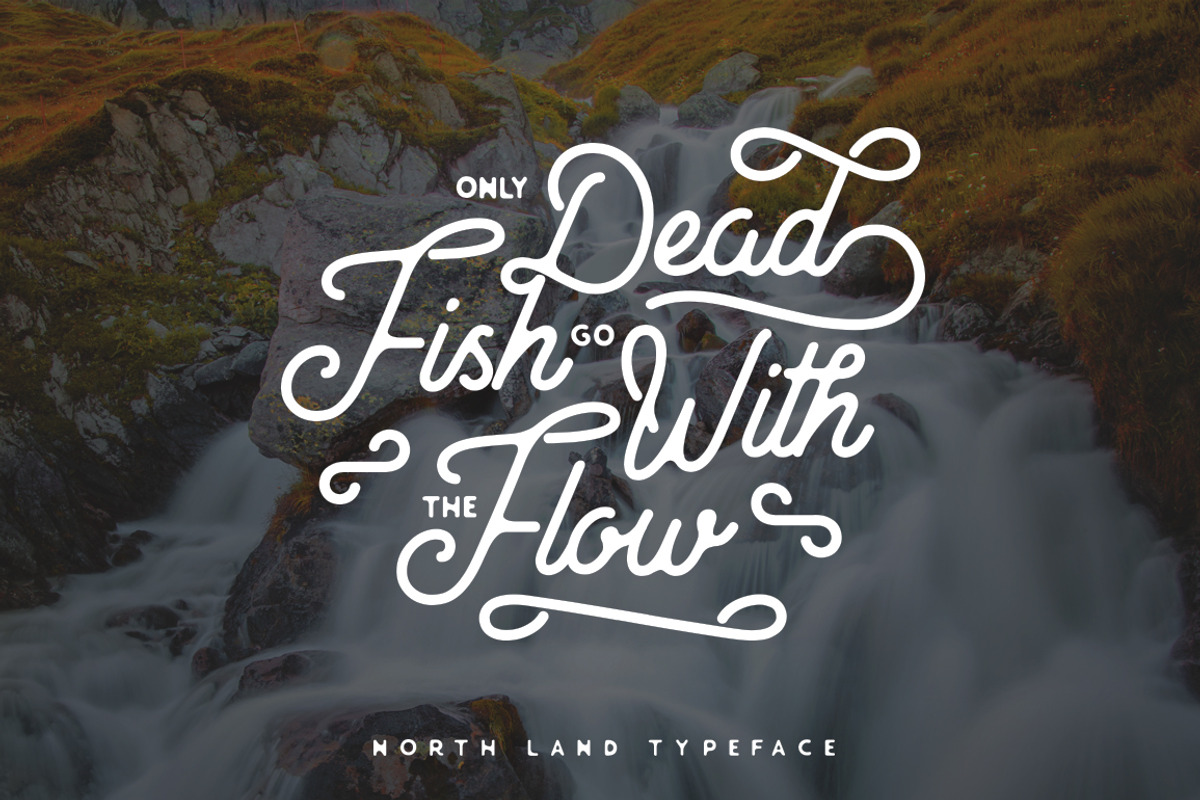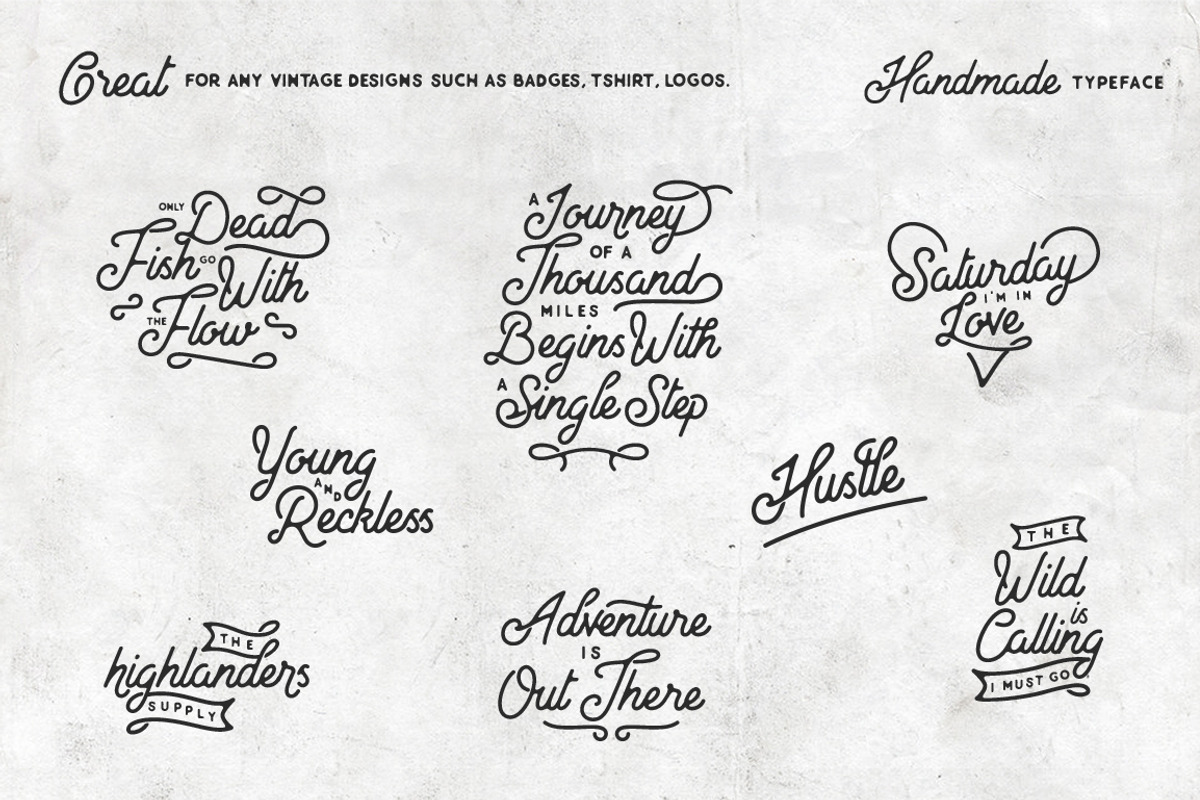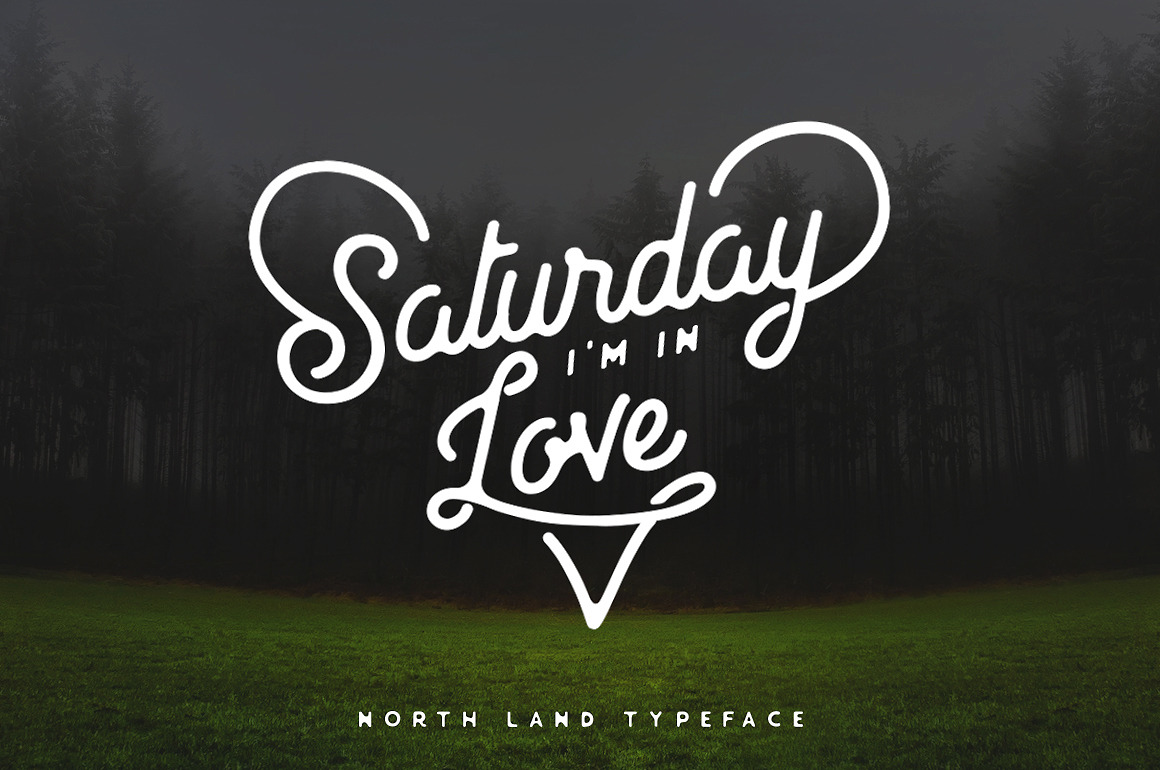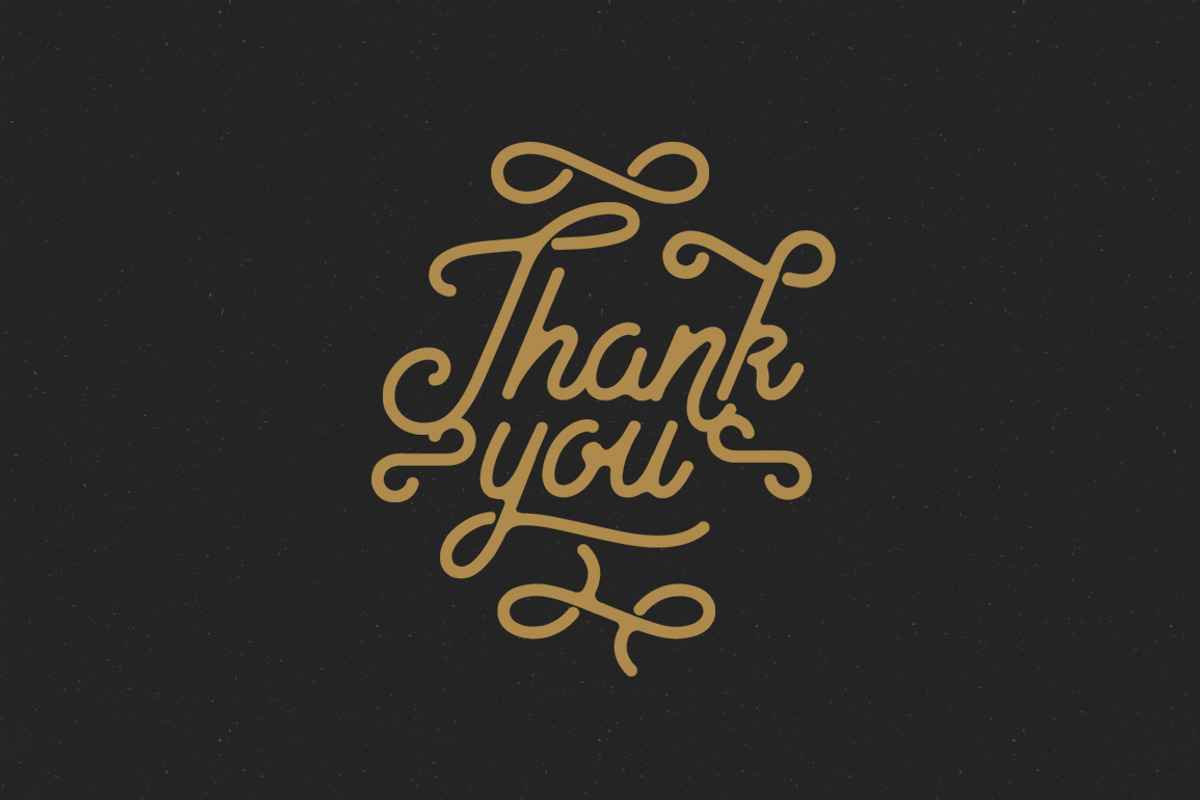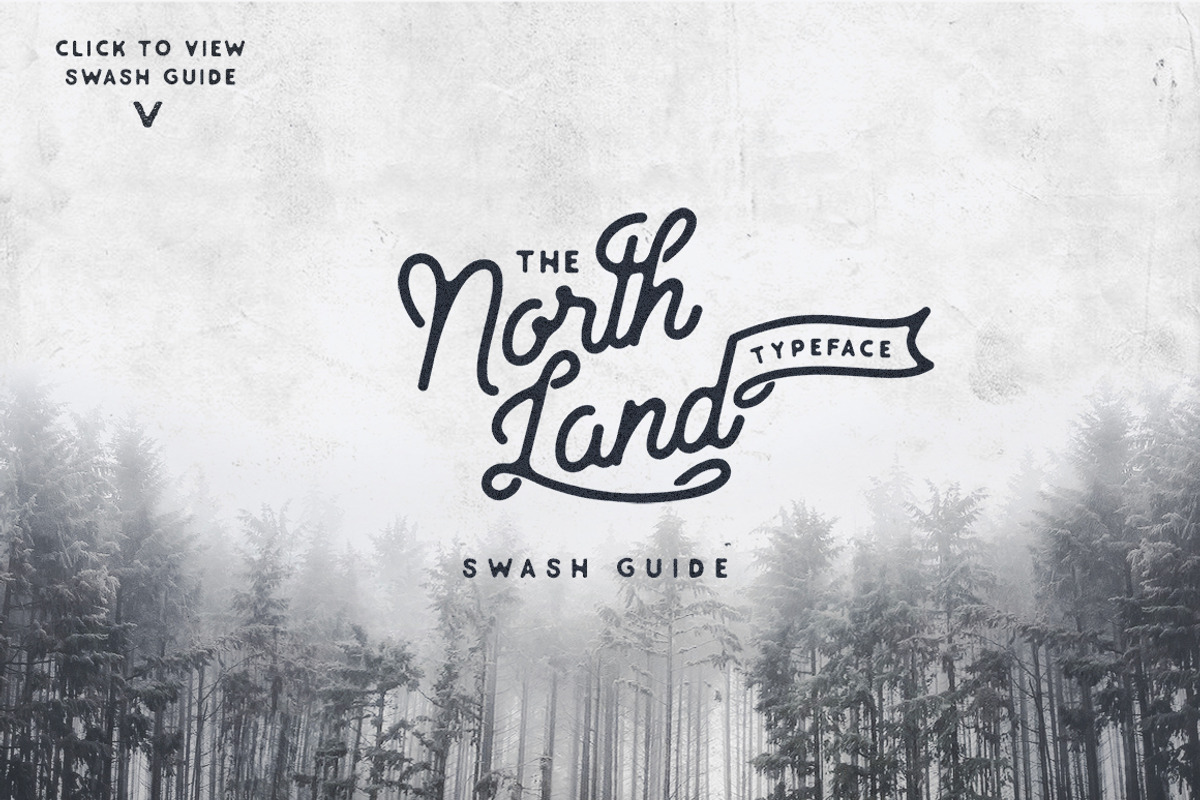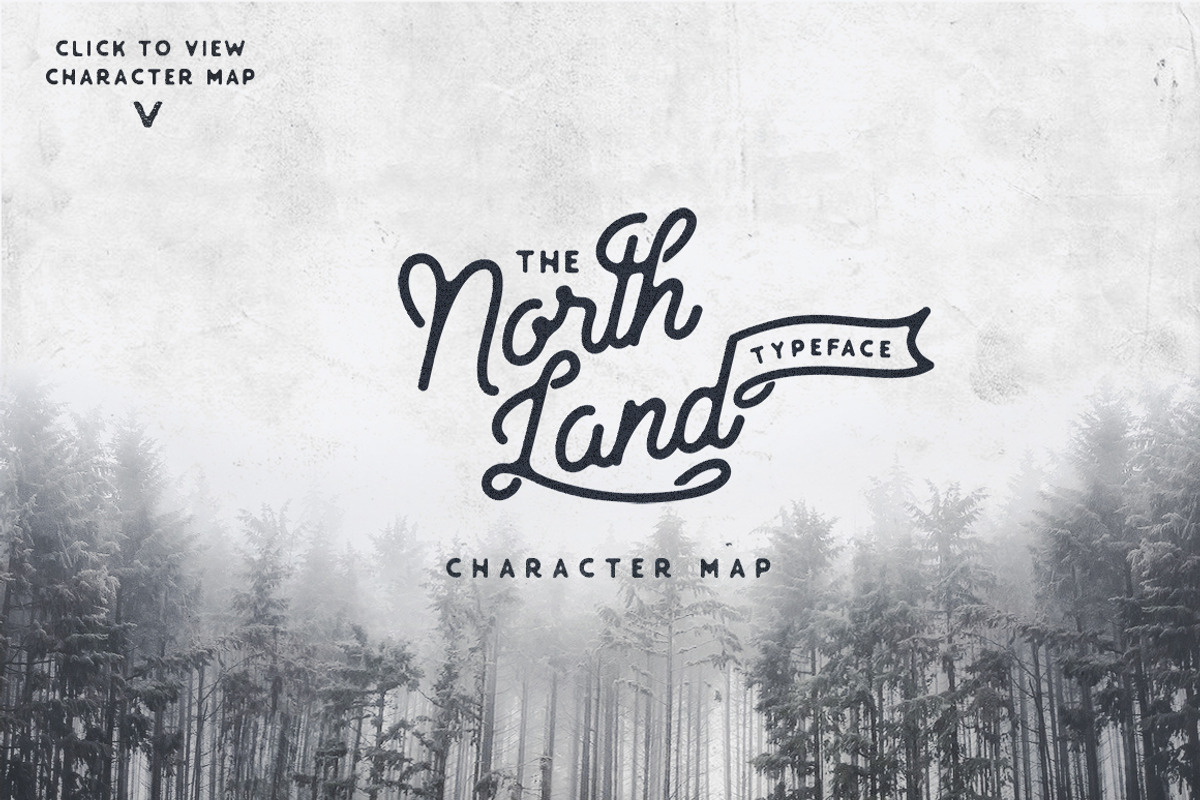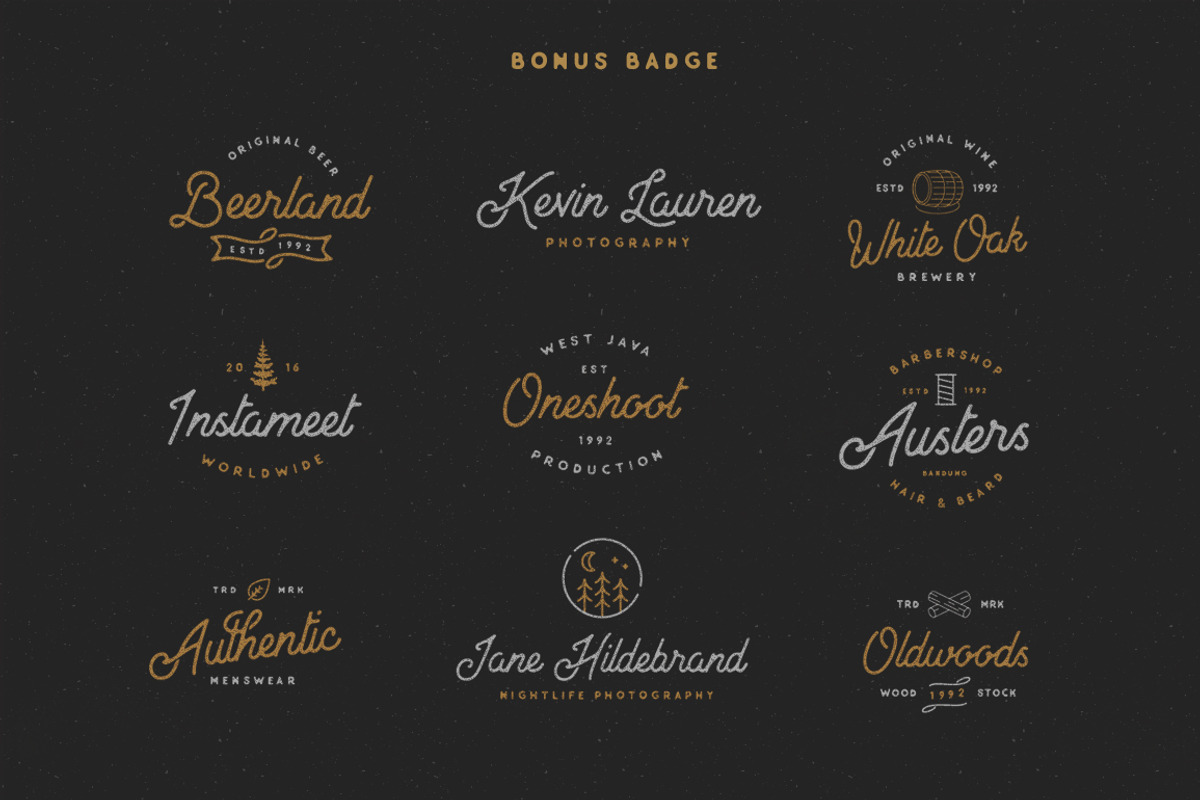
North Land Typeface - Font Bundle
Introducing North Land Typeface 3 in 1 + Bonus
North Land Typeface is a handlettering vintage font inspired by handmade lettering and typography. The font have smooth edges to simulate vintage printing, so it will bring a handdrawn classic look feel.
Come with 3 font files North Land Script, North Land Vintage Sans Serif and North Land Swash to be paired together for an vintage and classic look. I think this font set is the best way to learn manual typography.
Suitable for digital lettering, branding materials, t-shirt, print, business cards, quotes, logo, poster, t-shirt, nature photography and applicable for any graphic design.